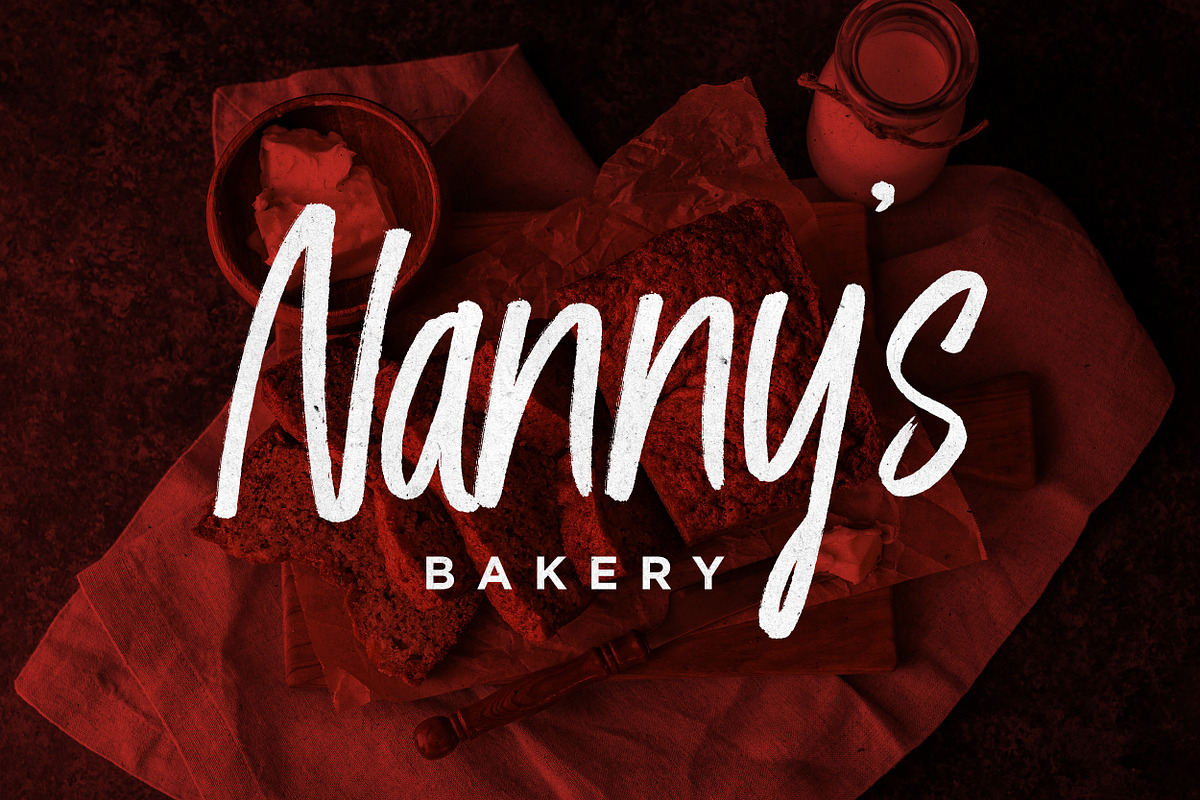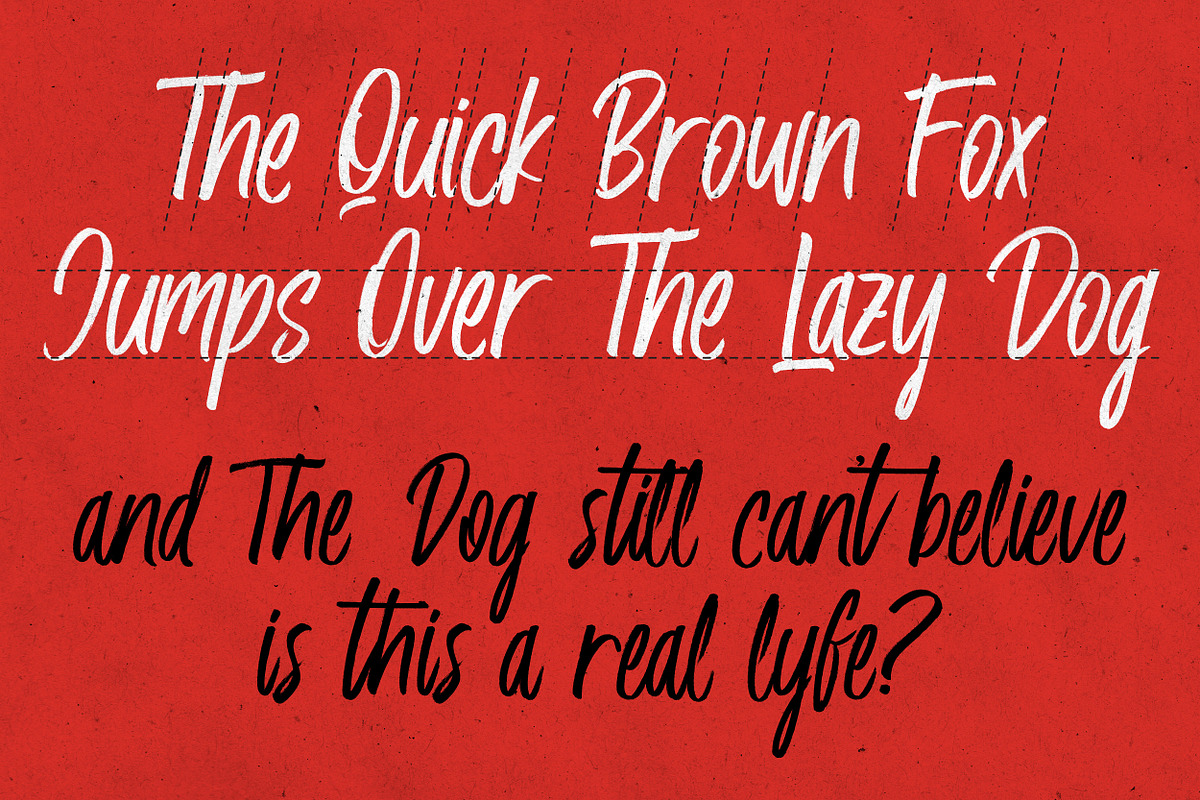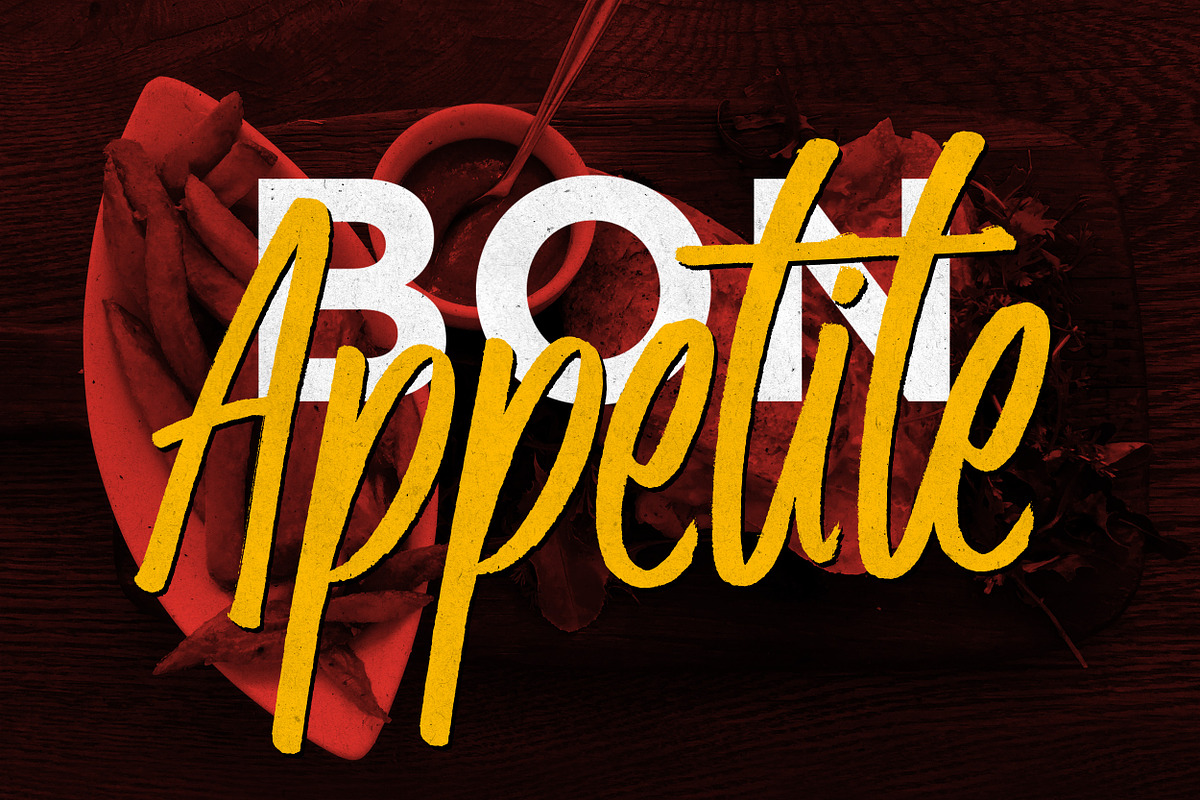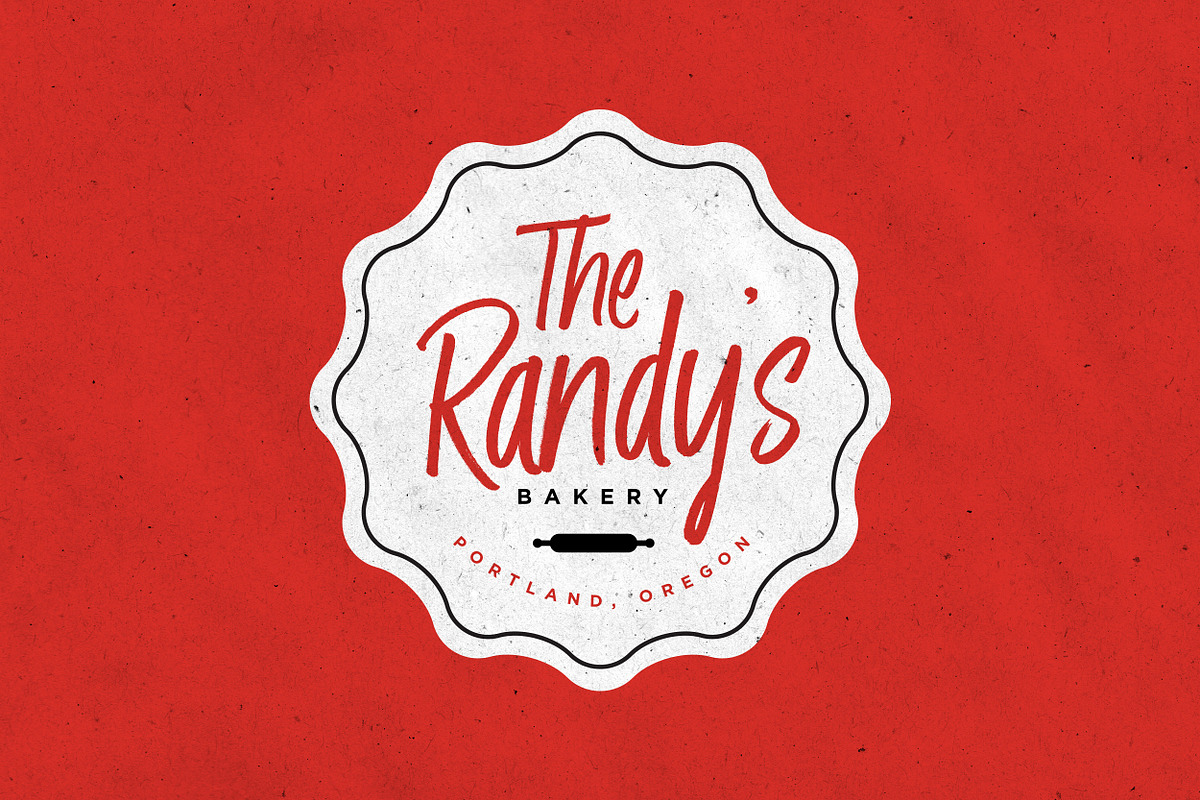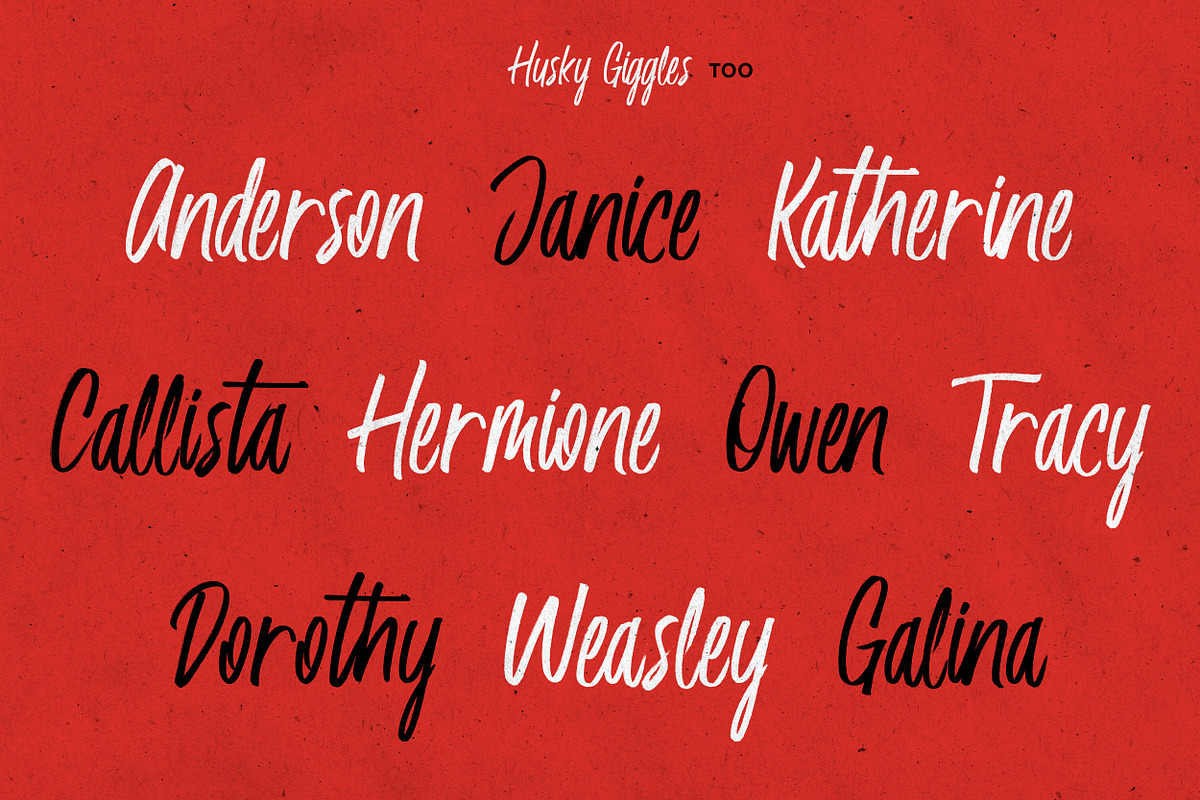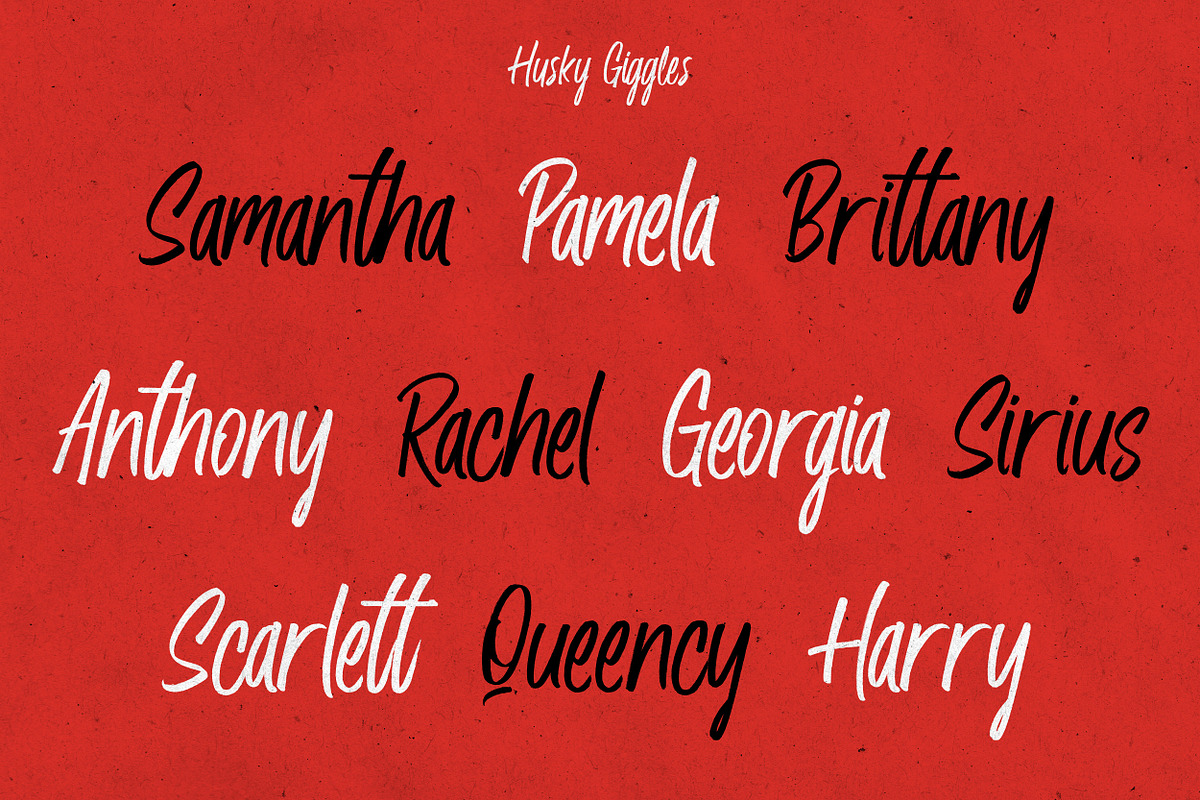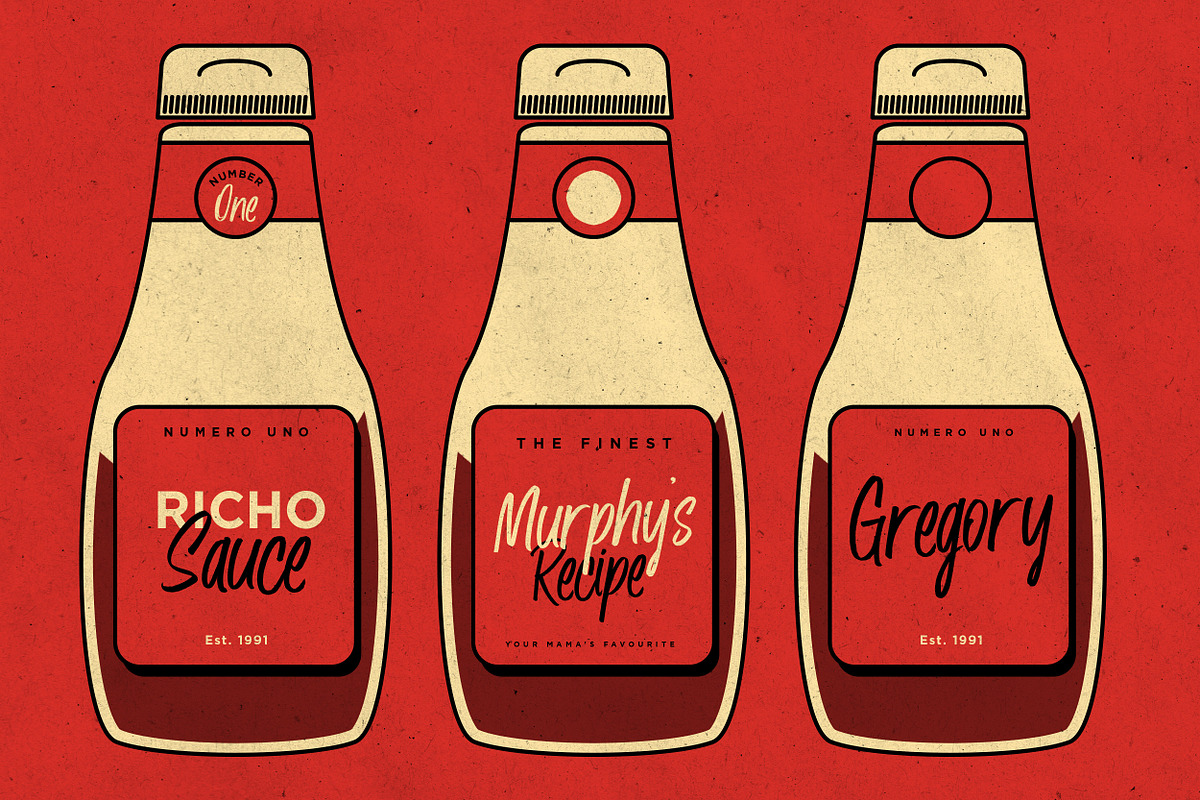
Husky Giggle - Handwriting Font
Howdy! I'm the Husky Giggle a duo fonts, scratched from the handwritten brush pen and ink. I love to put on the vintage casual logo or branding, food and beverages, anytime you need an casual handwriting bold feels. I'm the one that can make you smile for a sec by choosing :)
Husky Giggle : A casual hand stroked by brush pen and ink. Fast and casual. Perfectly fit for your vintage casual fun logo and branding needs.
Husky Giggle again : Another style for each letters from the Husky Giggle. A twins but not so twins.